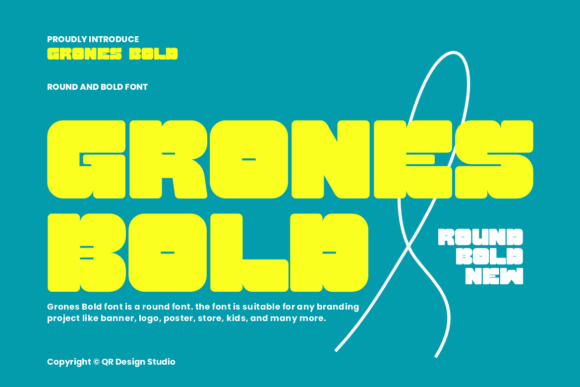
Grones Bold Font: A Modern & Round Display Font for Impactful Designs
In the world of typography, a font can make all the difference in the success of a design project. A well-chosen font can elevate a brand’s visual identity, convey its message, and leave a lasting impression on its audience. One such font that has been making waves in the design community is Grones Bold, a modern and round display font that combines bold presence with a playful, friendly aesthetic.
What is Grones Bold Font?
Grones Bold is an impactful, round font that merges chunky, geometric letterforms with perfectly rounded edges, giving it a distinctive, modern feel that is both assertive and approachable. This typeface is designed to make a strong visual statement, making it perfect for headlines, titles, and bold logos.
Key Features of Grones Bold Font
- Chunky and Geometric Letterforms: Grones Bold features chunky, geometric letterforms that give it a bold and modern look.
- Perfectly Rounded Edges: The font’s perfectly rounded edges add a touch of friendliness and approachability to its design.
- PUA Encoded: Grones Bold is PUA encoded, allowing effortless access to all glyphs, swashes, and alternate characters.
- Versatile: This font is suitable for a wide range of design projects, including bold logos, eye-catching banners, posters, and designs for products and stores.
Uses of Grones Bold Font
Grones Bold is a versatile font that can be used in a variety of design projects, including:
- Branding: Create bold and memorable logos that make a lasting impression on your audience.
- Advertising: Use Grones Bold for eye-catching banners, posters, and ads that grab attention.
- Product Design: Add a modern touch to your product designs, such as packaging, labels, and tags.
- Store Design: Create visually appealing store designs, including signs, displays, and window graphics.
Why Choose Grones Bold Font?
There are several reasons why Grones Bold is an excellent choice for designers:
- Unique and Modern Design: Grones Bold features a unique and modern design that sets it apart from other fonts.
- Legibility: The font’s clear and powerful lines ensure that your message is easily readable and remembered.
- Flexibility: Grones Bold can be used in a variety of design projects, from bold logos to eye-catching banners.
- Easy to Use: The font’s PUA encoding makes it easy to access all glyphs, swashes, and alternate characters.
Tips for Using Grones Bold Font
Here are some tips for using Grones Bold effectively in your design projects:
- Pair with Other Fonts: Pair Grones Bold with other fonts to create a unique and visually appealing typography.
- Use for Headlines: Use Grones Bold for headlines and titles to make a strong visual statement.
- Experiment with Colors: Experiment with different colors to find the perfect combination that matches your brand’s identity.
- Keep it Simple: Keep your design simple and clean to ensure that Grones Bold stands out.
Grones Bold is a modern and round display font that is perfect for designers seeking to make a strong visual statement. Its unique and modern design, legibility, and flexibility make it an excellent choice for a wide range of design projects. With its PUA encoding and easy-to-use features, Grones Bold is a must-have font for any designer looking to elevate their designs.